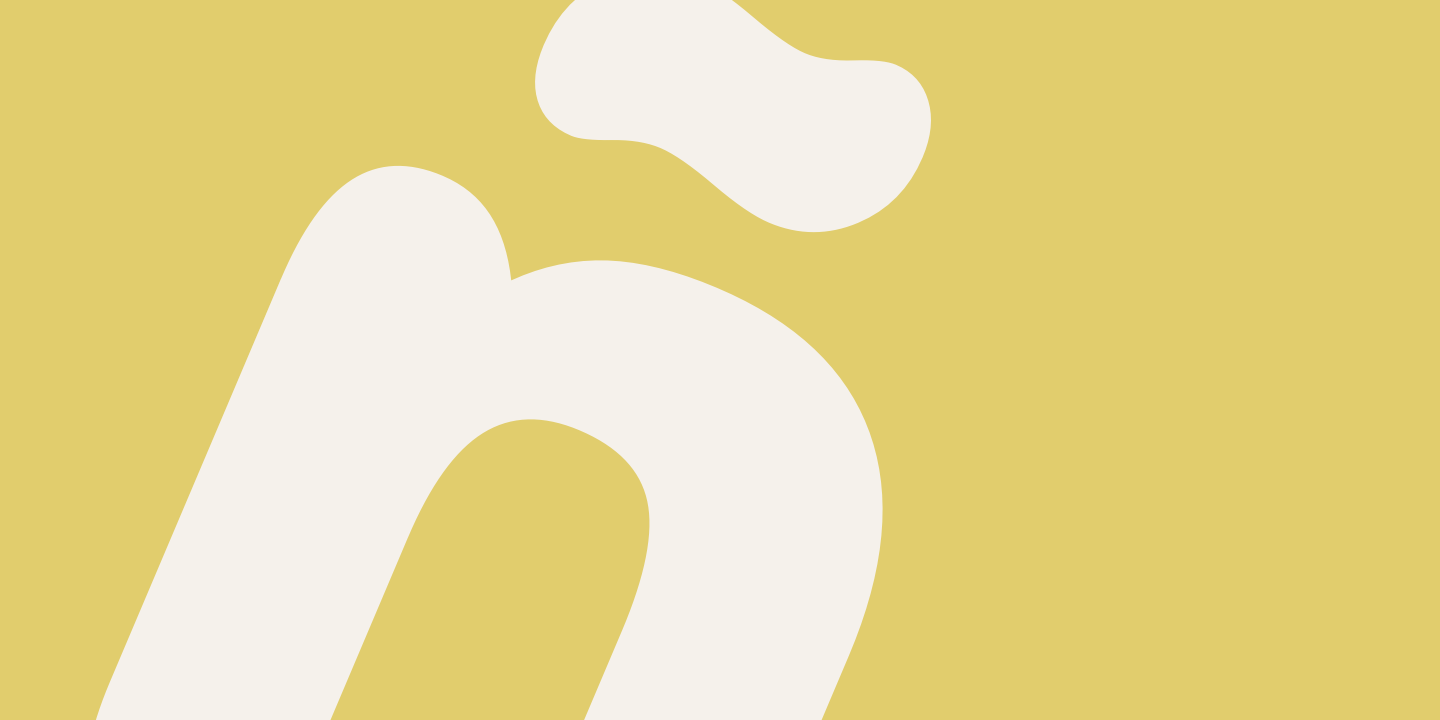
VAG Rounded BT Free Download
VAG Rounded BT Font Free Download
VAG Rounded BT Font Free Download is a modern, rounded sans-serif typeface that combines a clean, friendly appearance with excellent legibility. Perfect for branding, logos, signage, advertising, and corporate materials, this font offers a versatile and approachable look that is perfect for both professional and casual applications. VAG Rounded BT Font has soft, rounded edges that add a warm, welcoming feel to your designs.
With VAG Rounded BT Font Free Download, you’ll receive a complete set of uppercase letters, lowercase, numbers, and essential punctuation, providing flexibility for a wide range of print and digital projects. Whether you're designing a modern logo, creating web content, or crafting eye-catching advertisements, this font ensures clarity while adding a sleek, contemporary vibe.
Enhance your designs with VAG Rounded BT Font Free Download. Its clean, modern style with rounded edges makes it an ideal choice for projects that need to feel approachable, friendly, and polished.